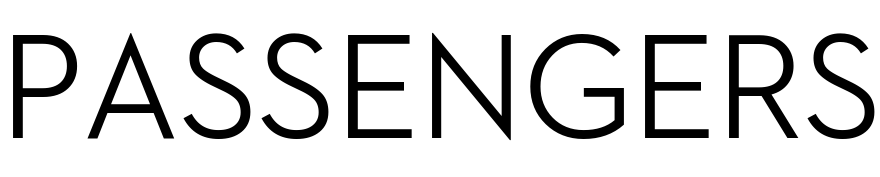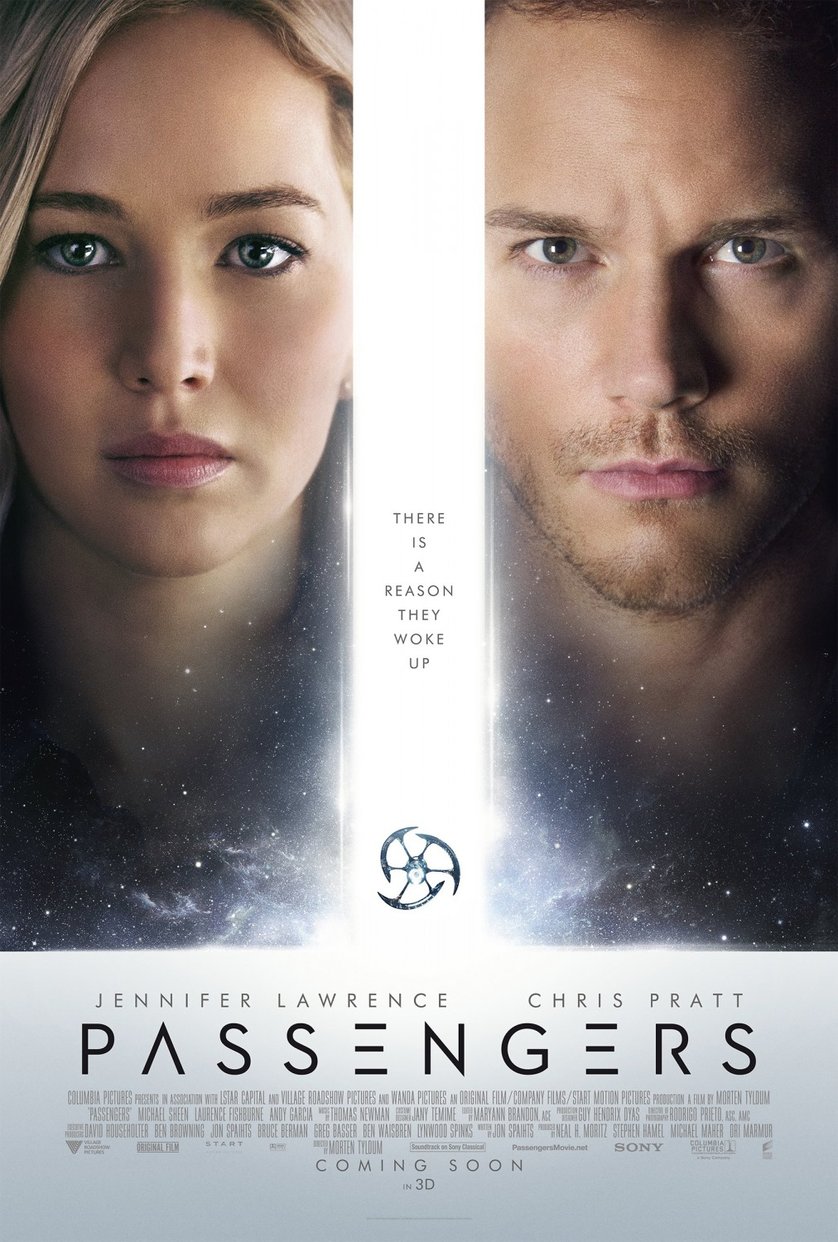
Passengers (film) Font
Fonts in UsePassengers is a 2016 science fiction film directed by Morten Tyldum, starring Jennifer Lawrence and Chris Pratt. The movie follows two passengers on a spacecraft traveling to a new planet who wake up from cryogenic sleep 90 years too early and must deal with the consequences of being alone on the ship.
The movie's title font on the poster seems to be based on Neutraface No 2 Display Medium, a geometric sans-serif designed by Christian Schwartz for House Industries inspired by Richard Neutra's design principles. Similar font is Revival Modern, a free geometric font by Brandon Washington for 2015 AIGA Conference.